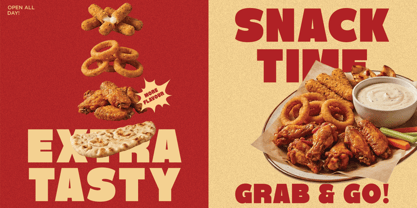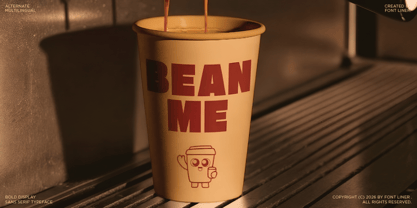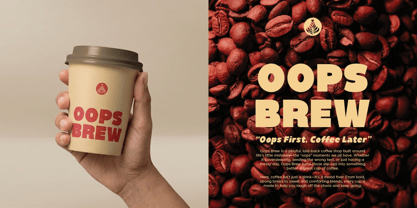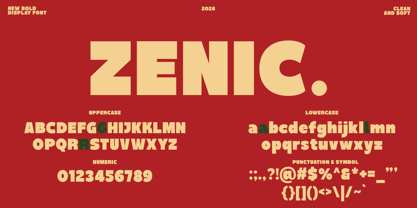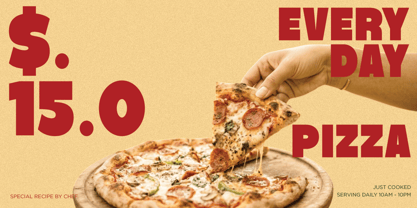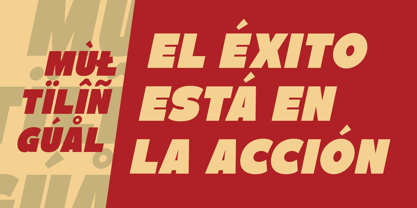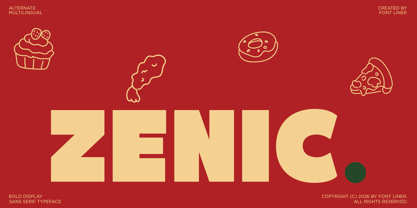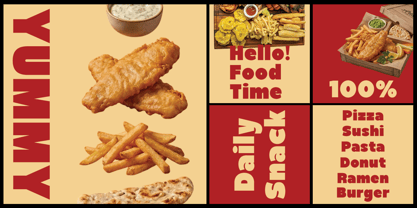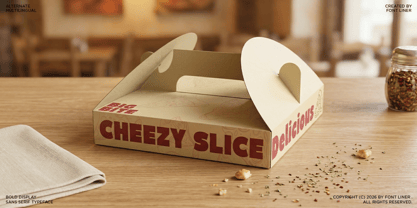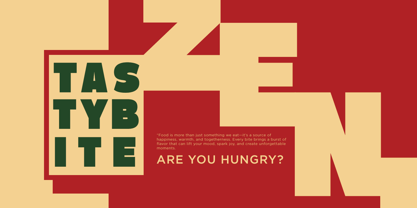
Zenic
Zenic is a bold display sans serif font crafted to deliver a strong visual impact with a playful and modern twist. Its solid letterforms and clean structure create a confident presence, while subtle rounded details add a friendly and approachable character. This balance makes Zenic both eye-catching and versatile for a wide range of creative applications.
Perfect for branding, packaging, food-related designs, and bold headlines, Zenic stands out effortlessly in both print and digital formats. Its thick strokes and high readability ensure clarity even at large sizes, making it ideal for logos, posters, and promotional materials. The playful tone also makes it a great fit for lifestyle and fun-driven brands.
With multilingual support and alternate characters, Zenic offers flexibility for global and creative projects. Whether you're designing for a modern brand or a vibrant product line, Zenic infuses energy, clarity, and a bold personality into your typography.